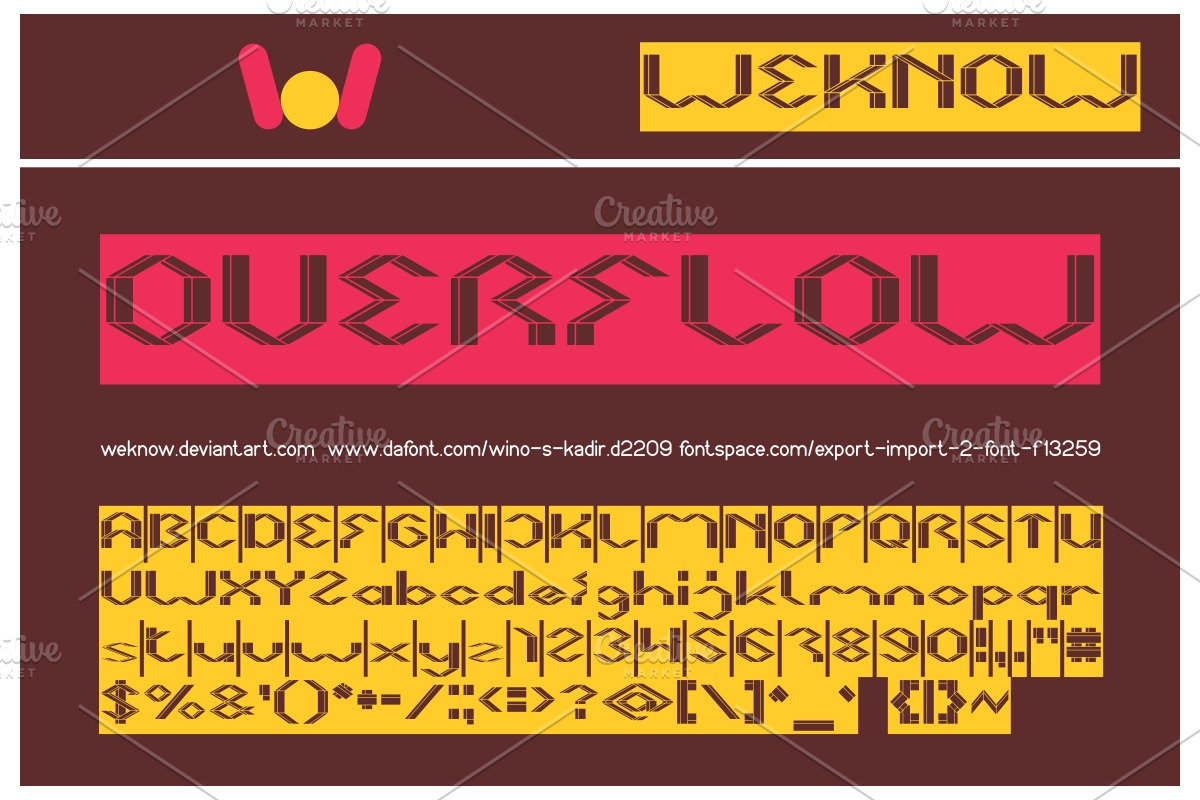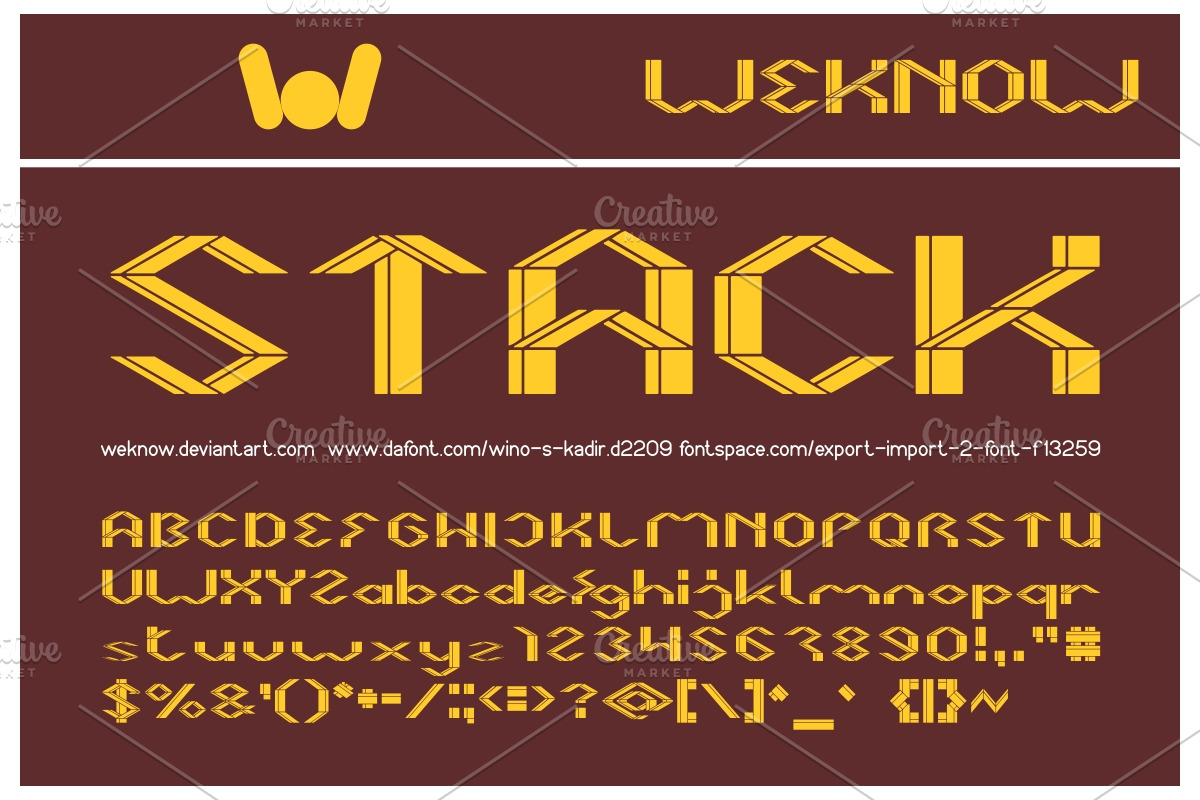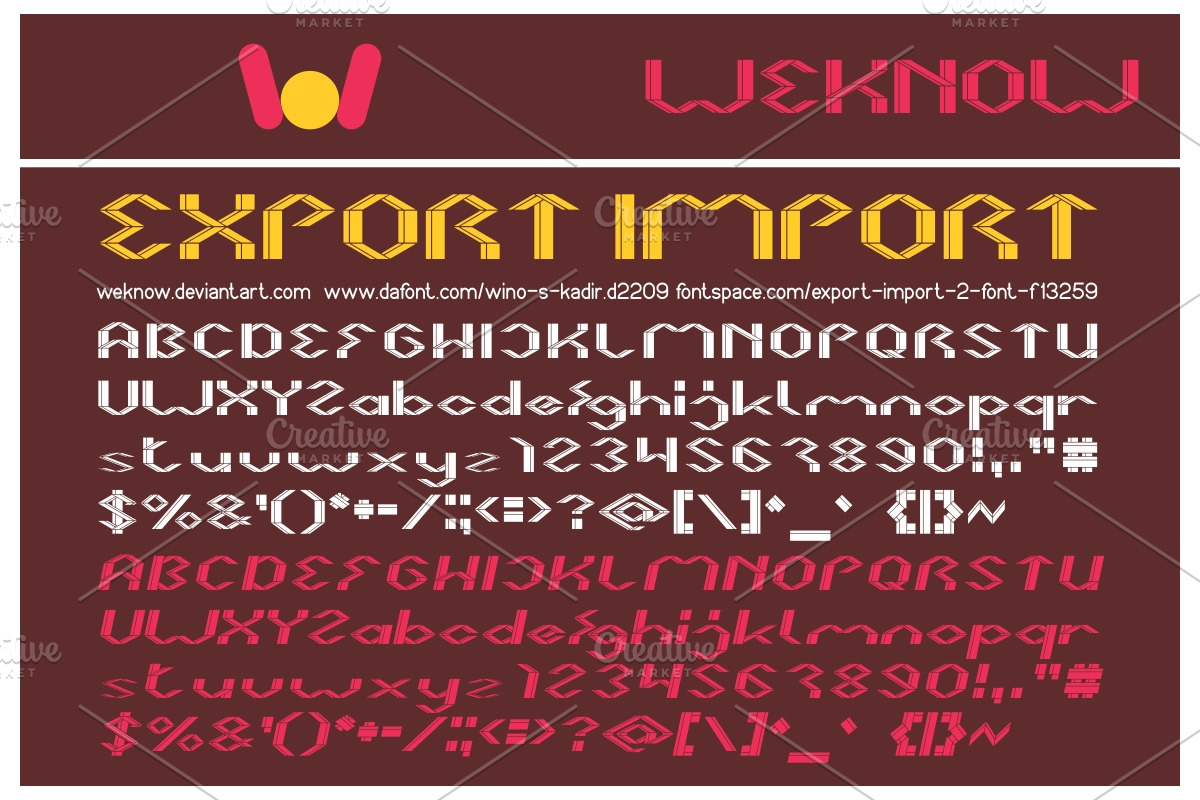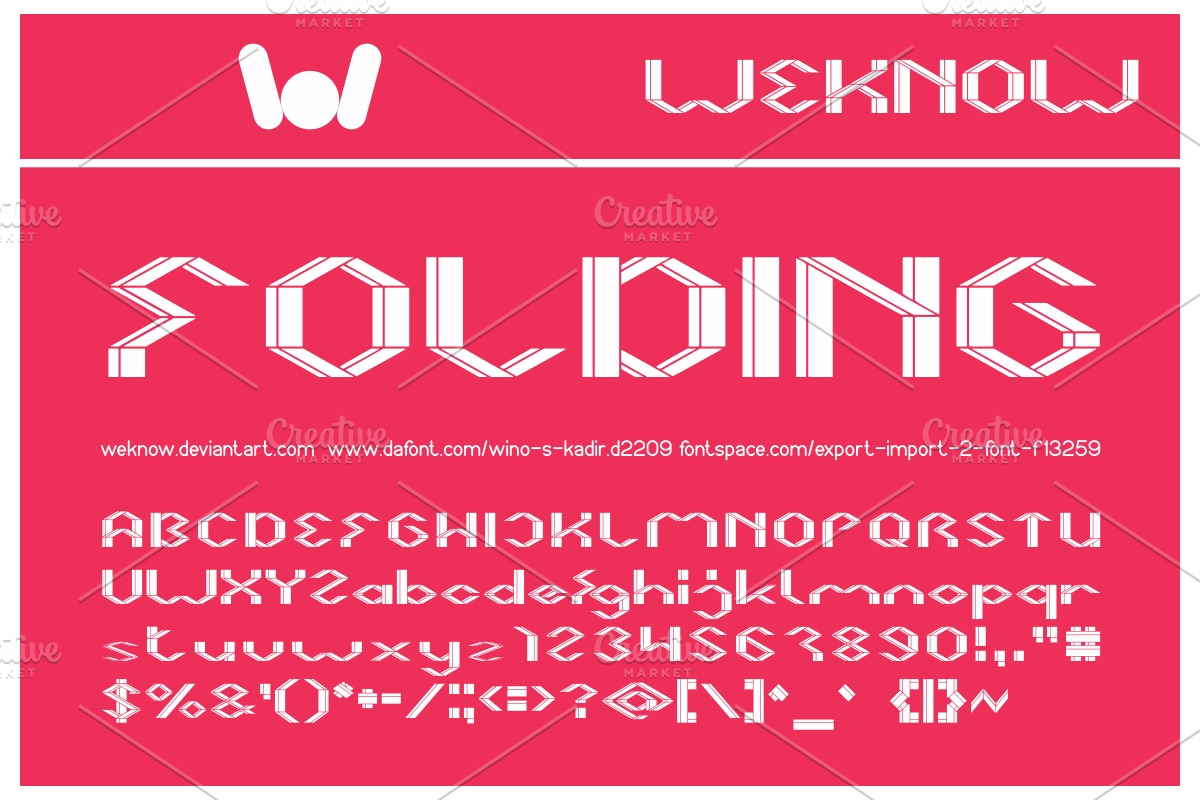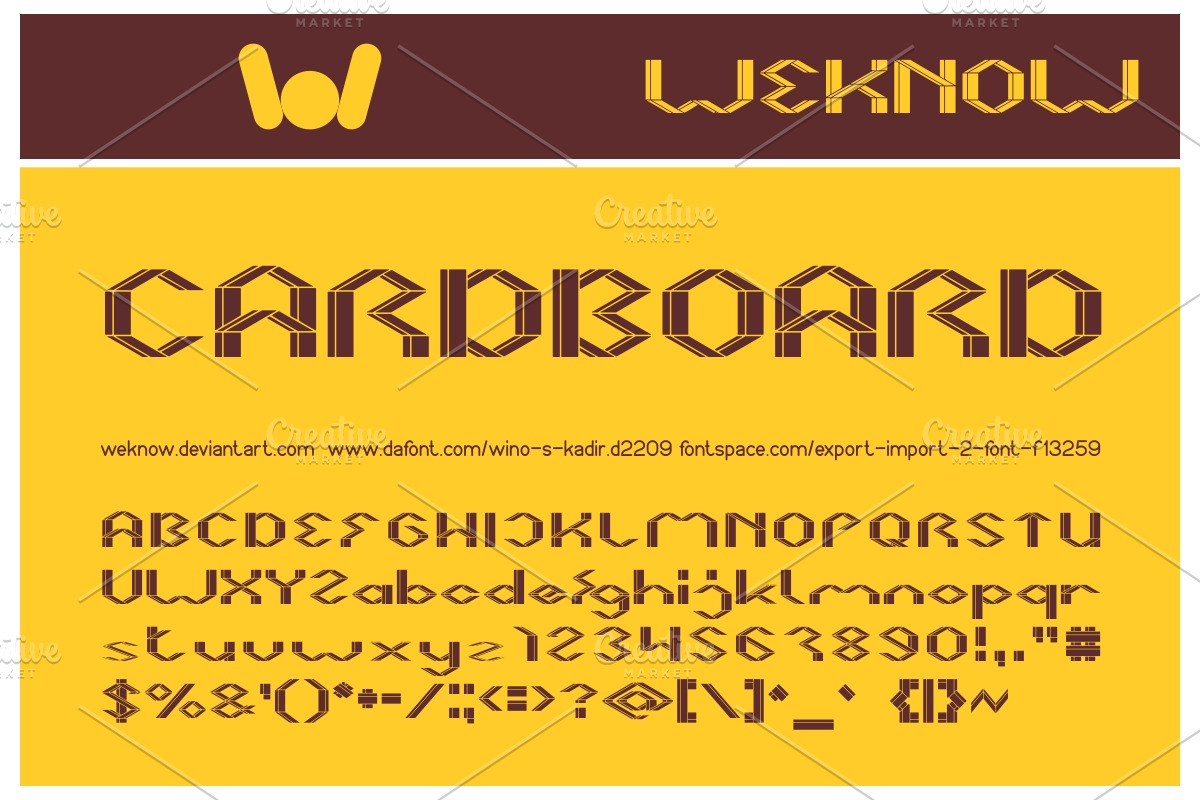
card board font
available style: Export Import-Inverse, Export Import-italic
card board font by weknow fits naturally into Branding, posters, packaging, typography.